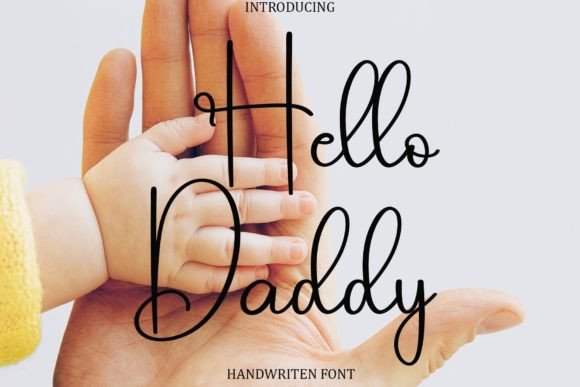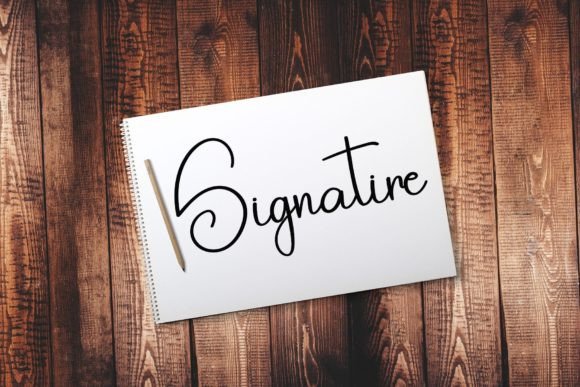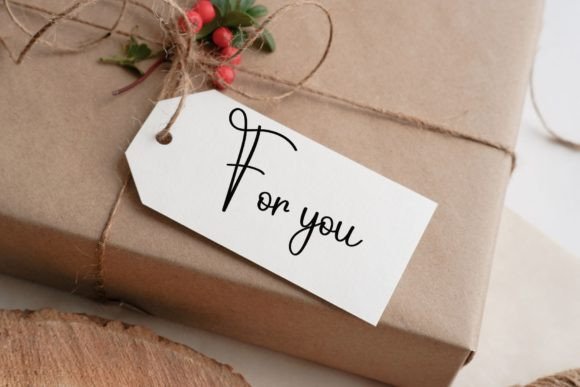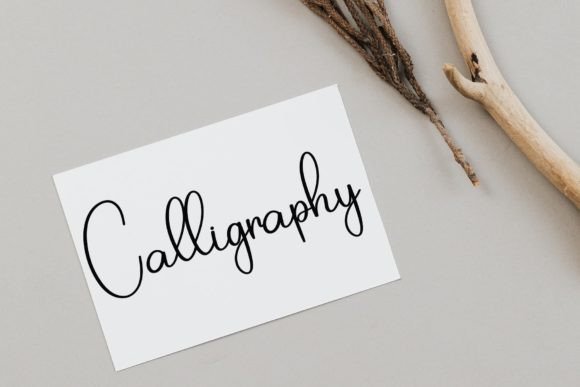
“Hello Daddy” is a sweet and beautiful handwritten font that adds a delightful touch to your design projects. With characters that dance along the baseline, this font brings a playful and adorable spark to any creative endeavor you wish to undertake.
The sweet and beautiful qualities of “Hello Daddy” make it a charming choice for a variety of design applications. Whether you’re working on greeting cards, invitations, posters, or any other project that could benefit from a touch of cuteness, this font has the potential to enhance the overall aesthetic.
The dancing characters along the baseline contribute to the font’s playful and dynamic nature. This feature adds a unique and animated quality to the text, making it visually interesting and engaging.
Consider using “Hello Daddy” when you want to infuse a sweet and adorable element into your designs. Its handwritten style and lively baseline make it suitable for projects that aim to convey a sense of warmth, playfulness, and charm.
In essence, “Hello Daddy” is more than just a font; it’s a creative tool that brings a sweet and playful spark to your projects. Embrace its handwritten charm to create designs that captivate and add a touch of adorable appeal.